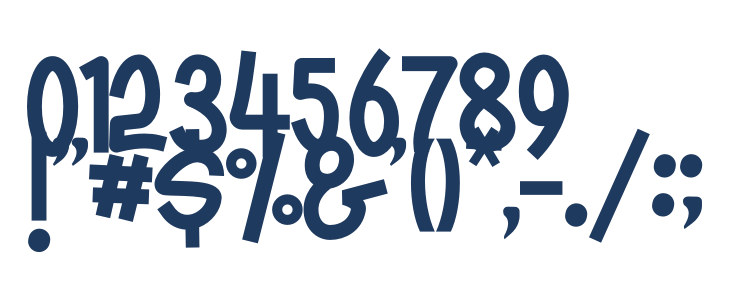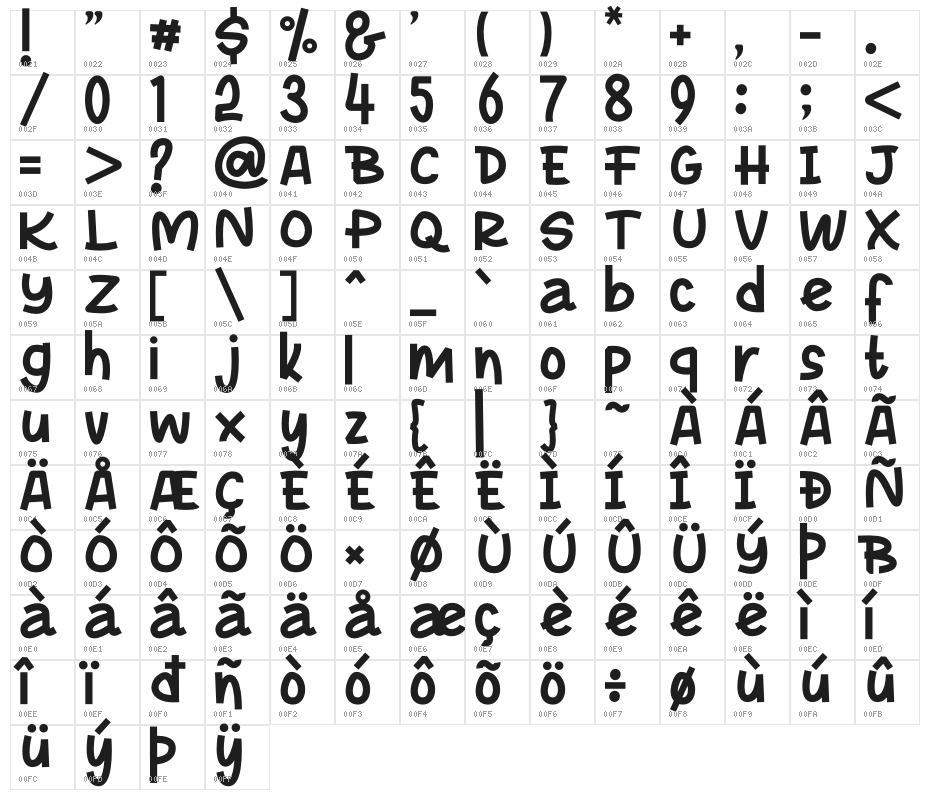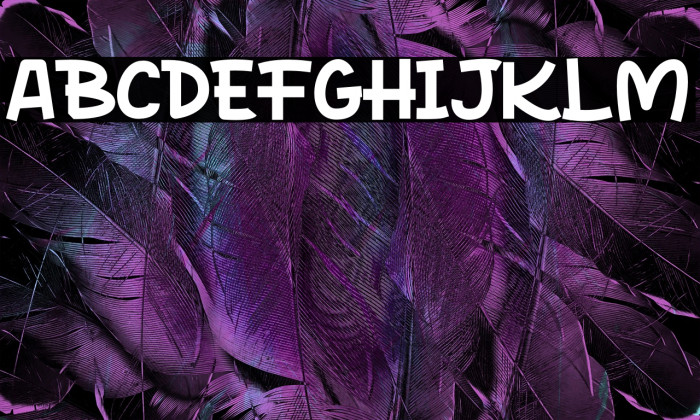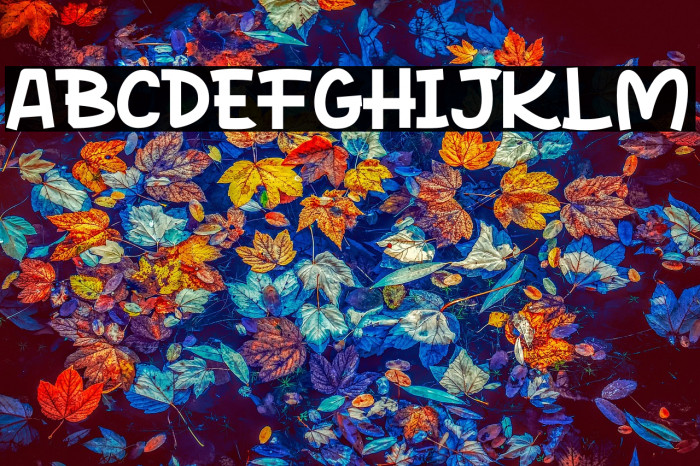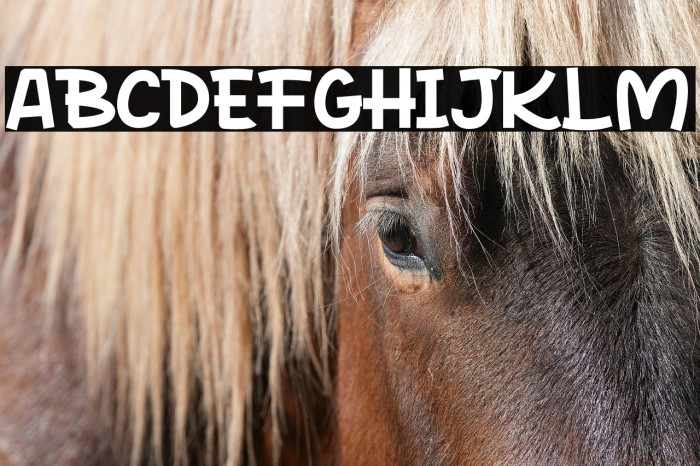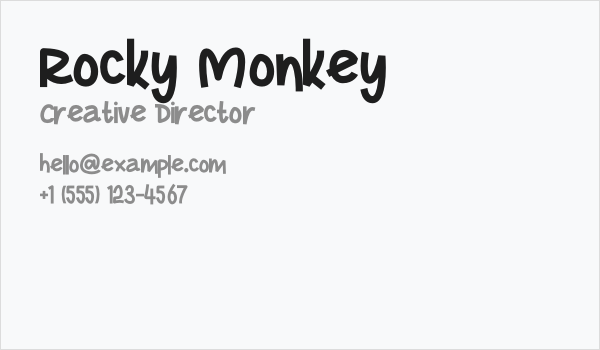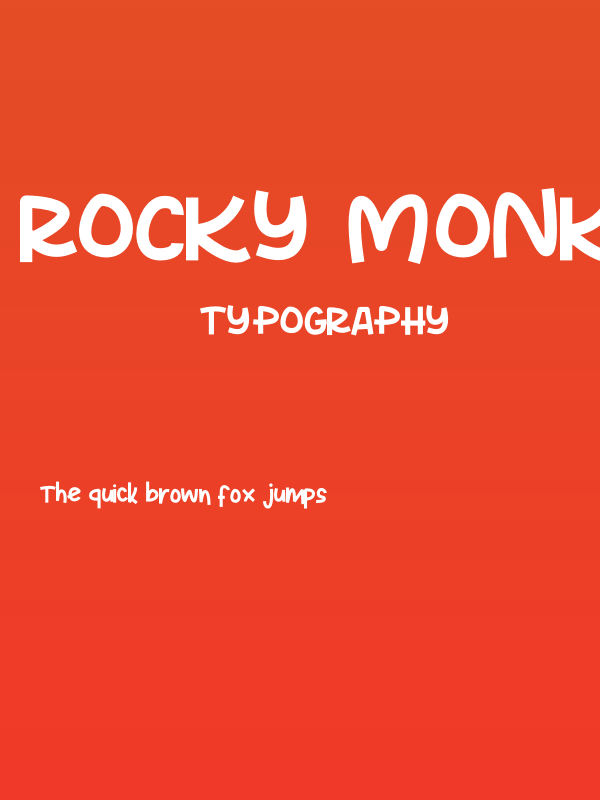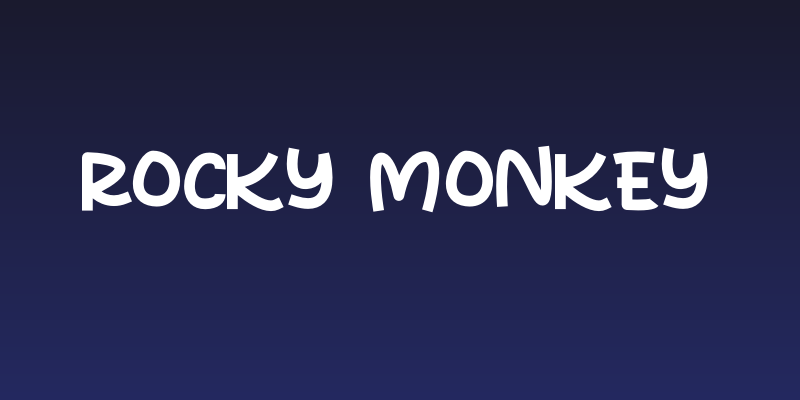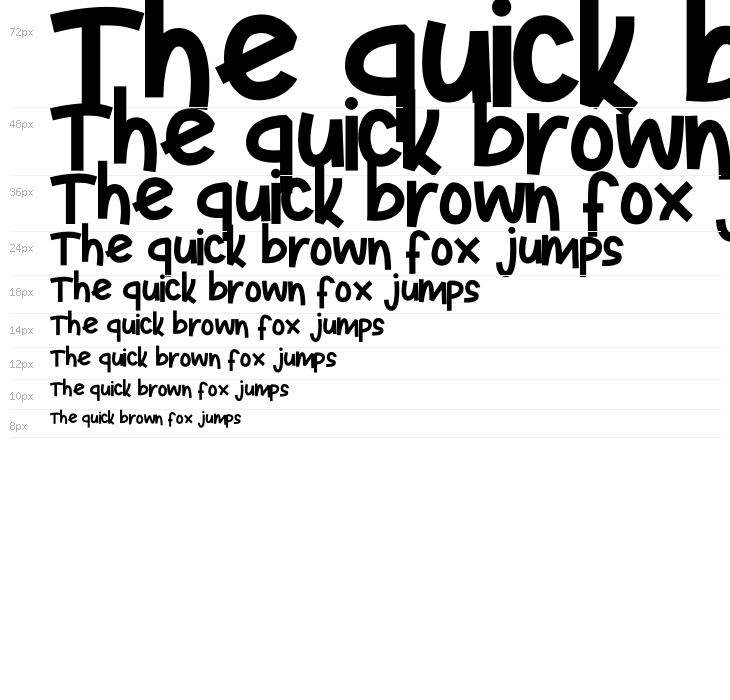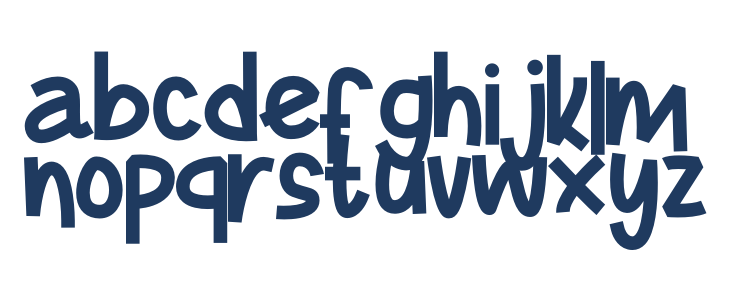
Rocky Monkey Font
Rocky Monkey Description
This playful and energetic font features bold, rounded characters with a slightly irregular baseline, giving it a whimsical and informal appearance. The strokes are thick and consistent, contributing to a strong visual impact. The uppercase and lowercase letters maintain a uniform style, while the numerals and special characters are designed to complement the overall look. The font's quirky nature makes it ideal for projects that require a fun and approachable aesthetic.
| Proposed Projects | Ideal for children's books, playful branding, party invitations, and casual social media graphics. |